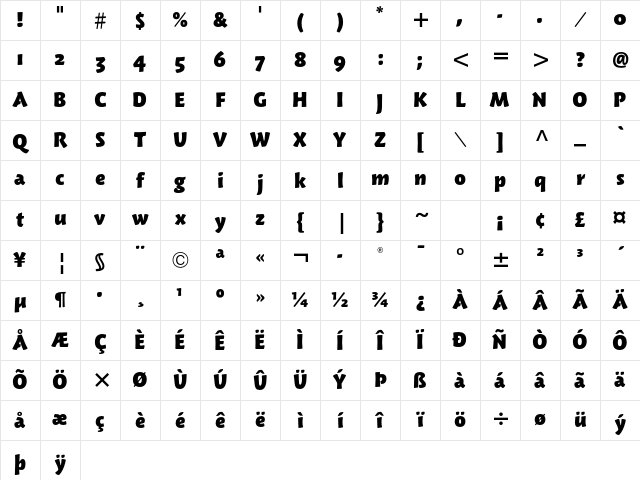
Woodland ITC Std Heavy
Designer: Akira Kobayashi
Complete Woodland ITC Std Heavy glyph index. Displaying only characters natively supported by Woodland ITC Std Heavy font.
Design Context for Woodland ITC Std
Woodland ITC Std echoes the hand-painted signage and woodblock typography of the American frontier, with a warm, rugged personality.
Font Pairing: Combine Woodland ITC Std with a simple slab or neutral sans - period-accurate companions reinforce the vintage feel without competing for attention.
Pro Tip: Use Woodland ITC Std for short, impactful bursts of text - it shines in poster headlines and product names rather than extended copy.